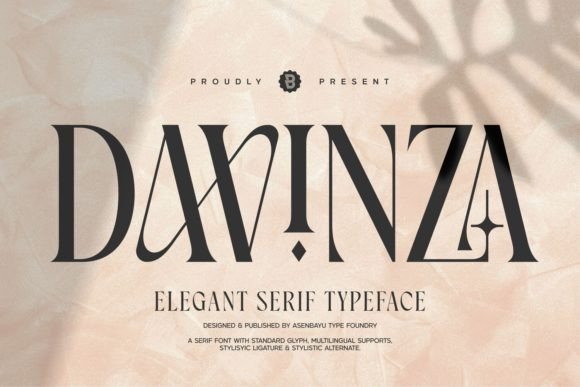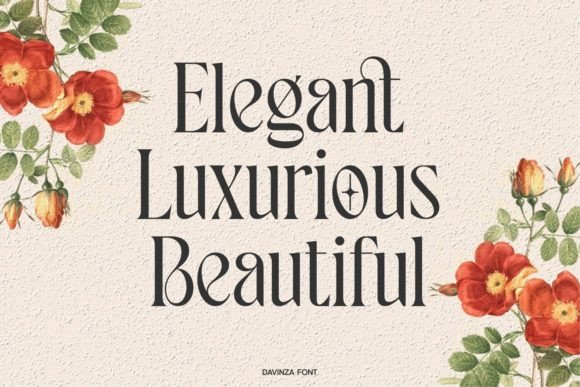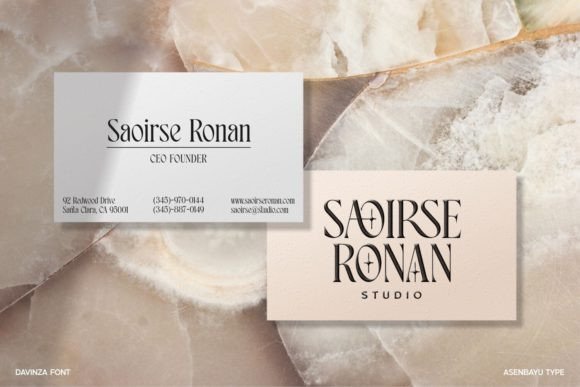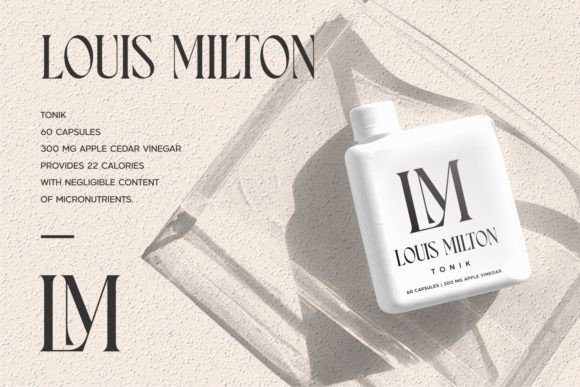
Davinza Font: Elegant Serif for Modern Logo Design & Branding
About the Davinza Font
We are excited to introduce Davinza Font, a must-have typeface for any serious designer. Davinza is stunning elegant serif typeface. This font has slim and tall letter proportions so it can give a high-end and minimalist impression. You can use this font in both modern and vintage designs. Use it to convey desired logo designs, attractive posters, unique social media designs, fashion and websites. Stylistic alternate and ligature features are available to achieve your design satisfaction.
Davinza excels in headline applications, branding projects requiring a touch of sophistication, and short-form content such as posters or invitations. Its elegant, minimalist nature makes it ideal for conveying luxury or high-end products. However, its slim proportions and limited x-height render it unsuitable for extended body text or UI elements where readability is paramount.
Pairing Davinza effectively requires consideration of its inherent delicacy. A geometric sans-serif like Montserrat or a clean, neutral font such as Lato would provide a strong contrast and enhance readability in supporting text. For a more luxurious feel, a script font with similarly refined strokes could be employed sparingly as an accent.
Davinza’s core personality is elegant and refined, conveying a sense of sophistication and understated luxury. It’s best suited for brands projecting quality, timelessness, and a commitment to detail.
Davinza Font Usage Examples
Davinza Font Example